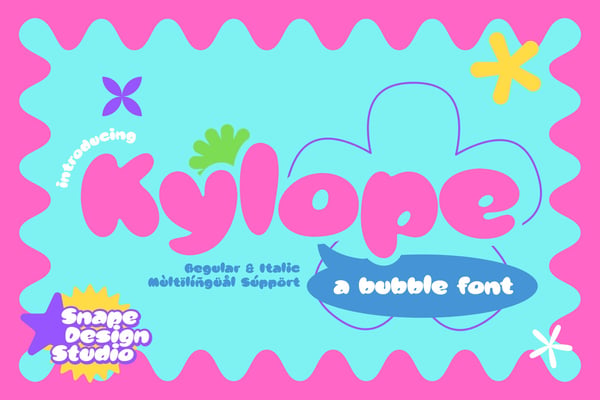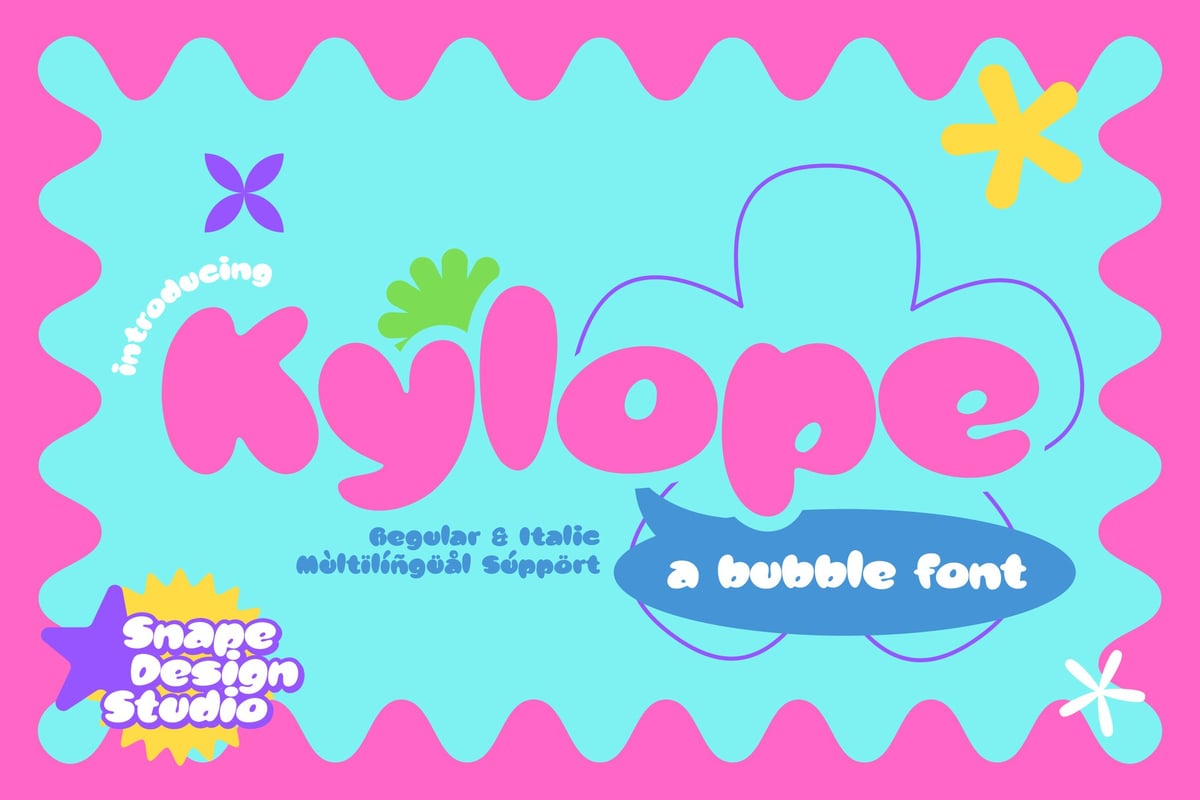
Kylope - Bubble Font
Transform your designs with Kylope's bold bubble letterforms that radiate pure joy and playful energy. This bubble-themed typeface delivers adorable, rounded characters that bring instant charm to any creative project. Kylope's organic and unique shapes make every word feel lively and expressive, creating designs that naturally draw smiles and attention. Perfect for bringing personality to branding projects, eye-catching posters, festive party invitations, children's product packaging, and digit...